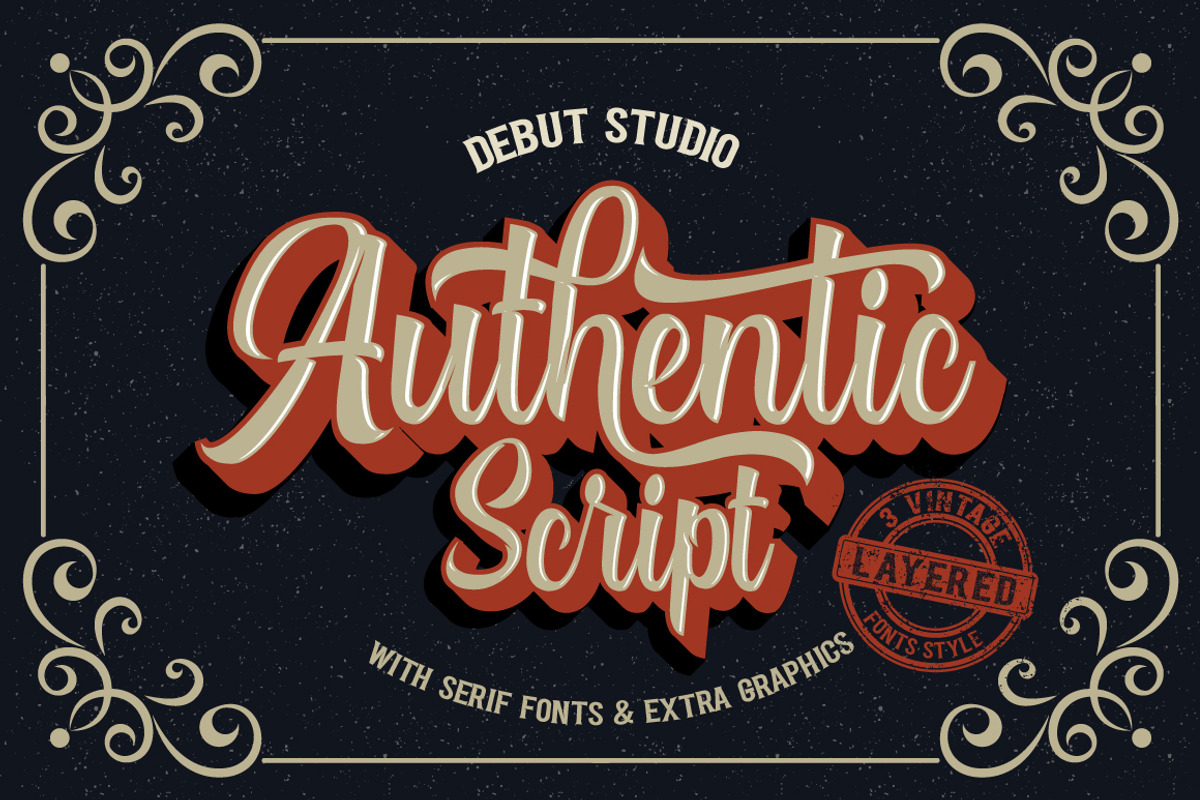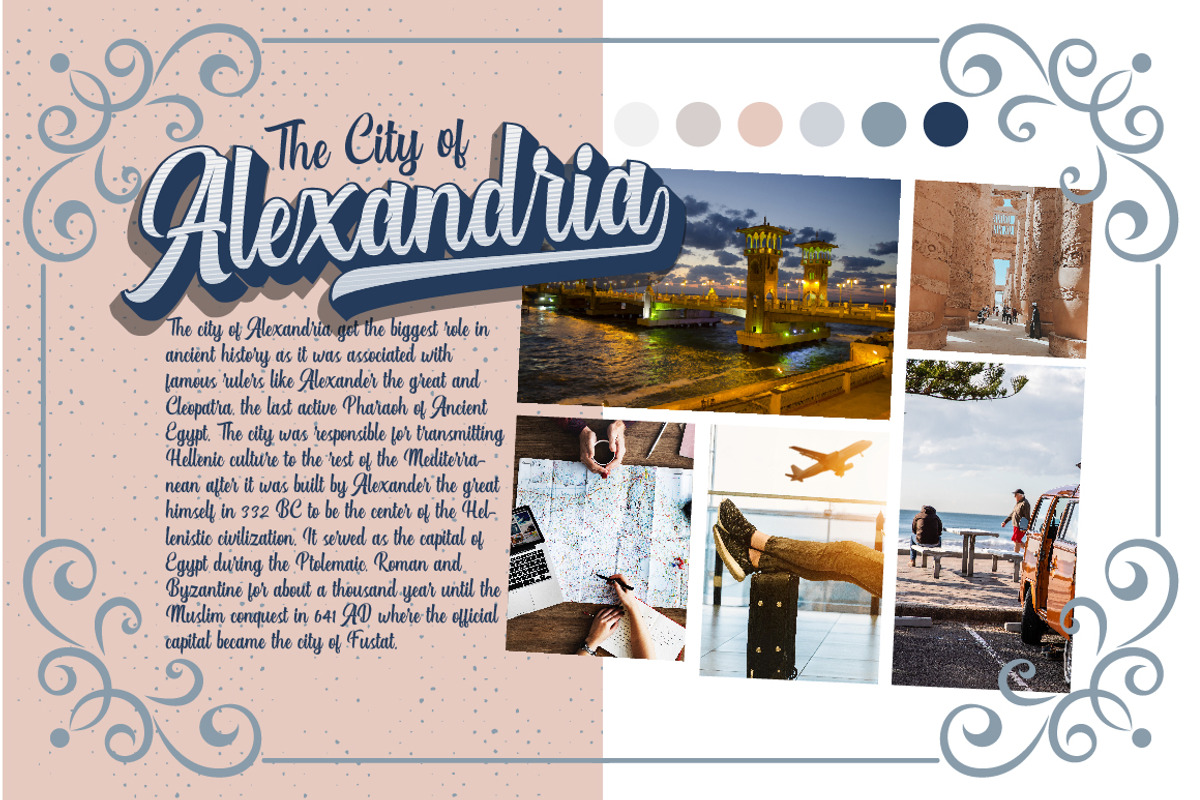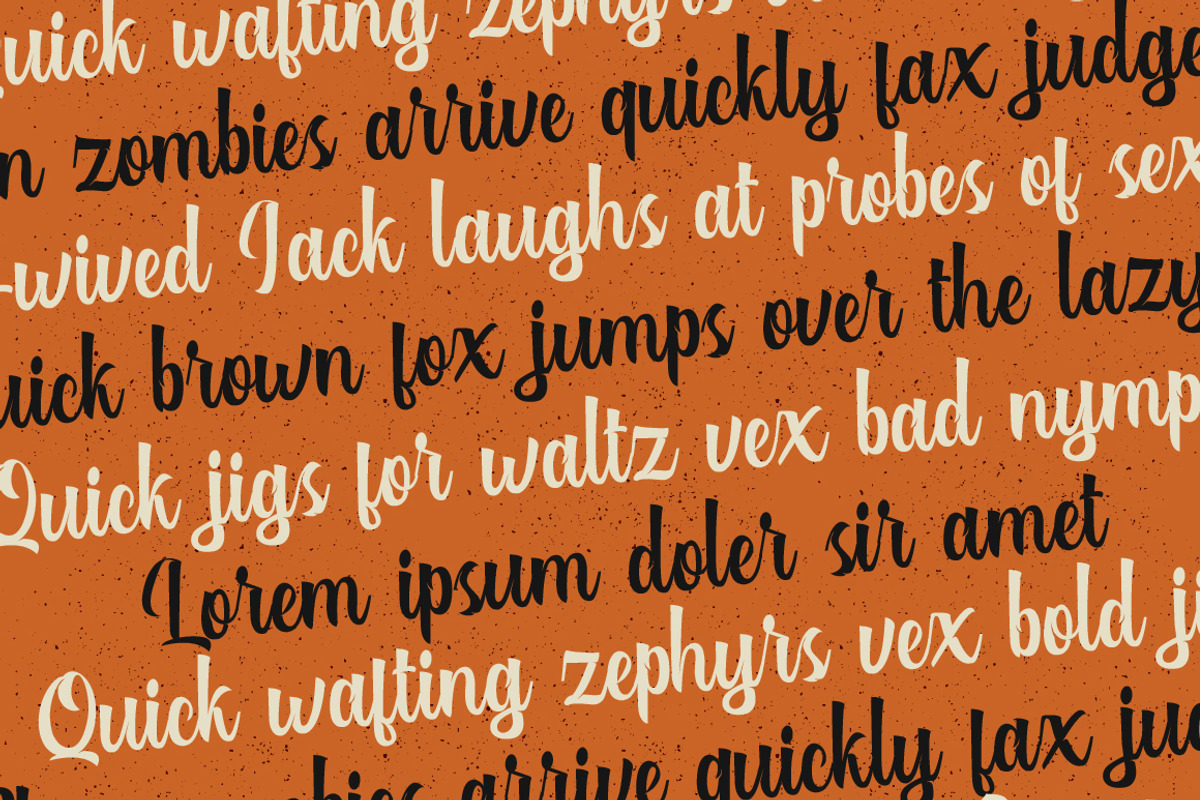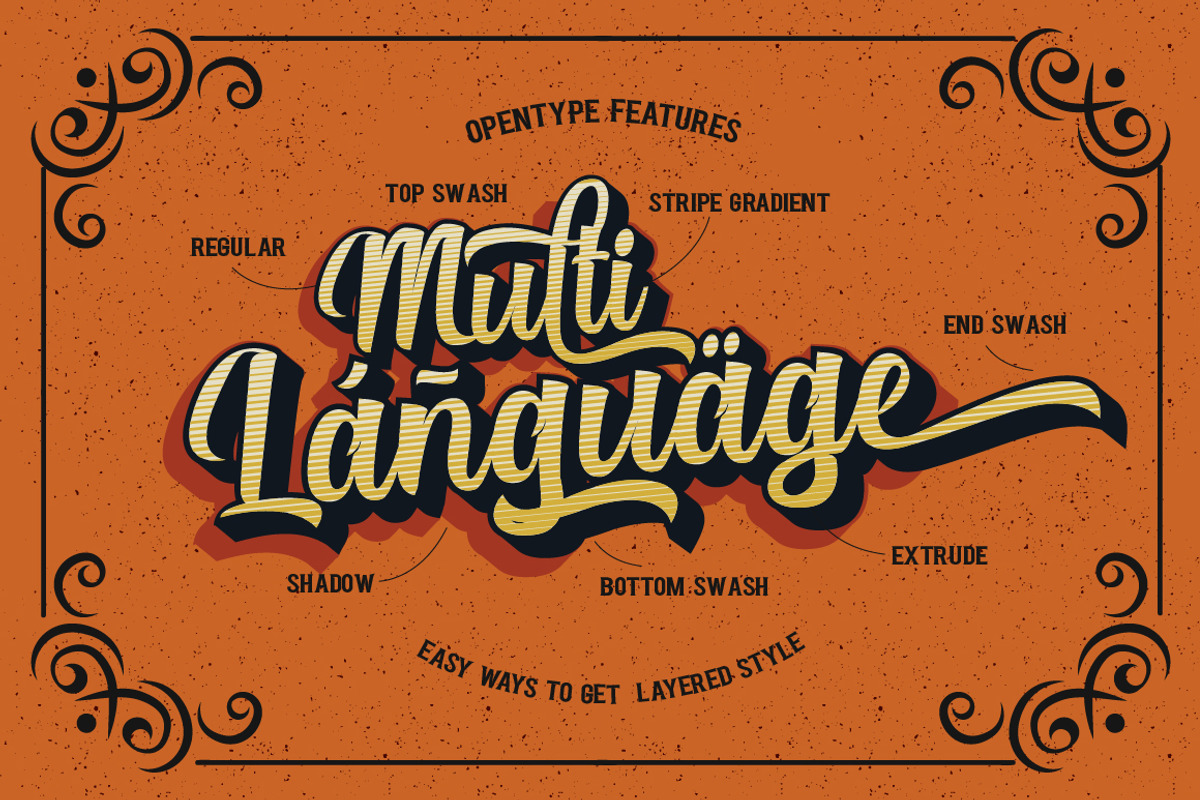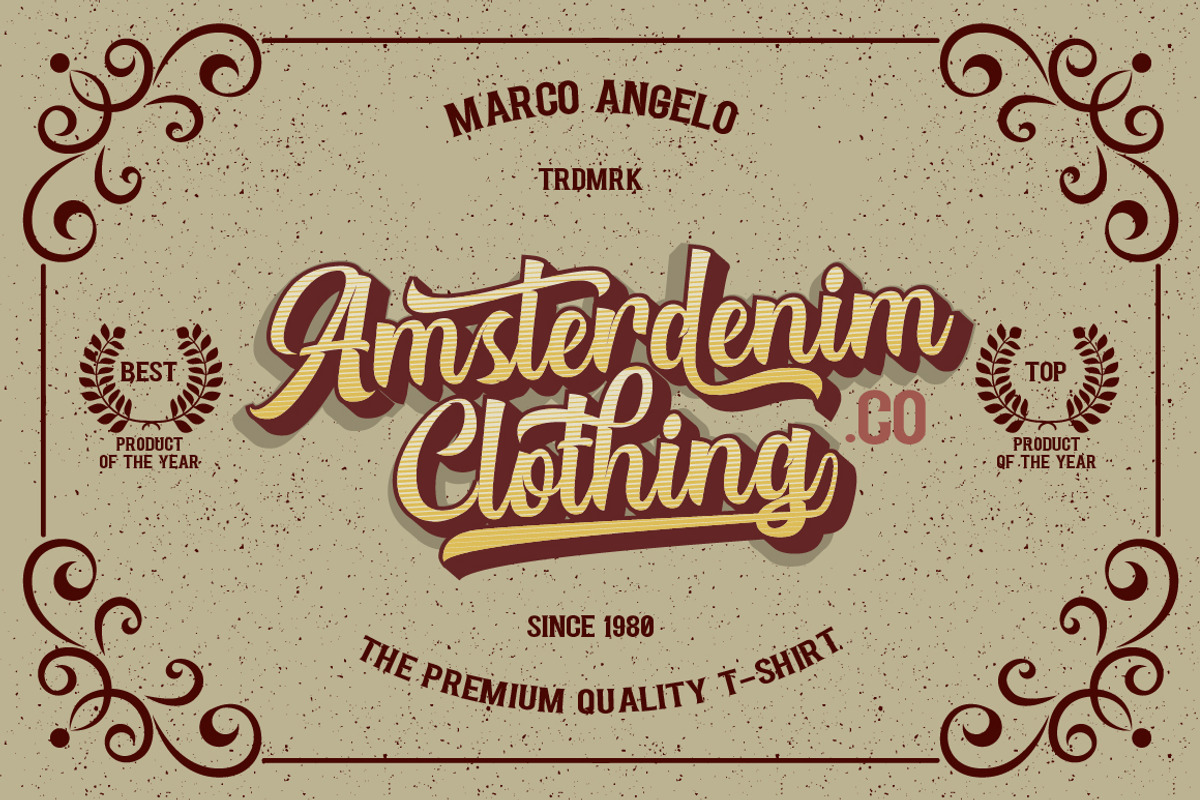
Authentic // Layered Fonts
Introducing, our latest stuff, the Authentic Layered Fonts. This font has 10 typeface, consists of two types, script and serif each has 4 layered type typeface and a rough typeface. so it can generate interesting fonts to see, you no longer need to worry about how to make effect on the text.
This font is suitable for young, passionate design, such as logo design, t-shirts, branding, and various other design purposes.
Authentic Serif Regular
Authentic Serif Rough
Authentic Serif Extrude
Authentic Serif Shadow
Authentic Serif Stripes
Alternate Stylistic Character
Multilanguage Support
Bonus Graphics : Design Elements, Animal Silhouette, and Frame
- Authentic Script Regular
- Authentic Script Rough
- Authentic Script Extrude
- Authentic Script Shadow
- Authentic Script Stripes